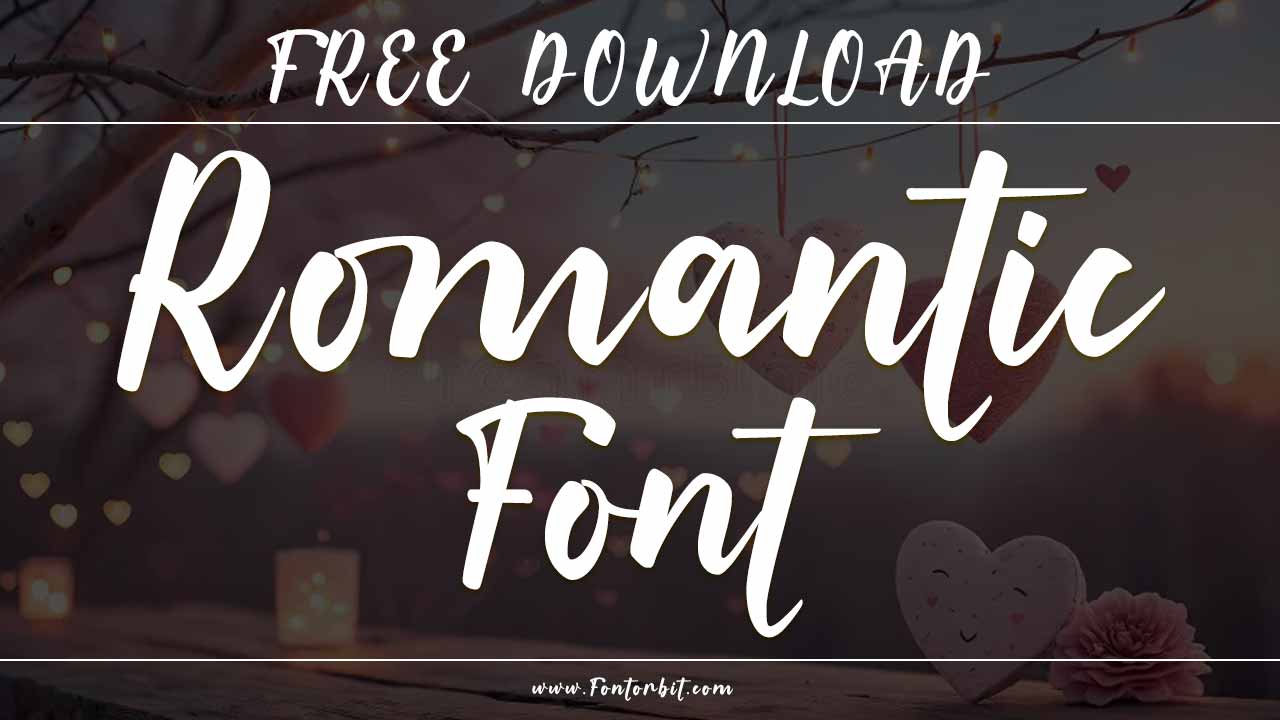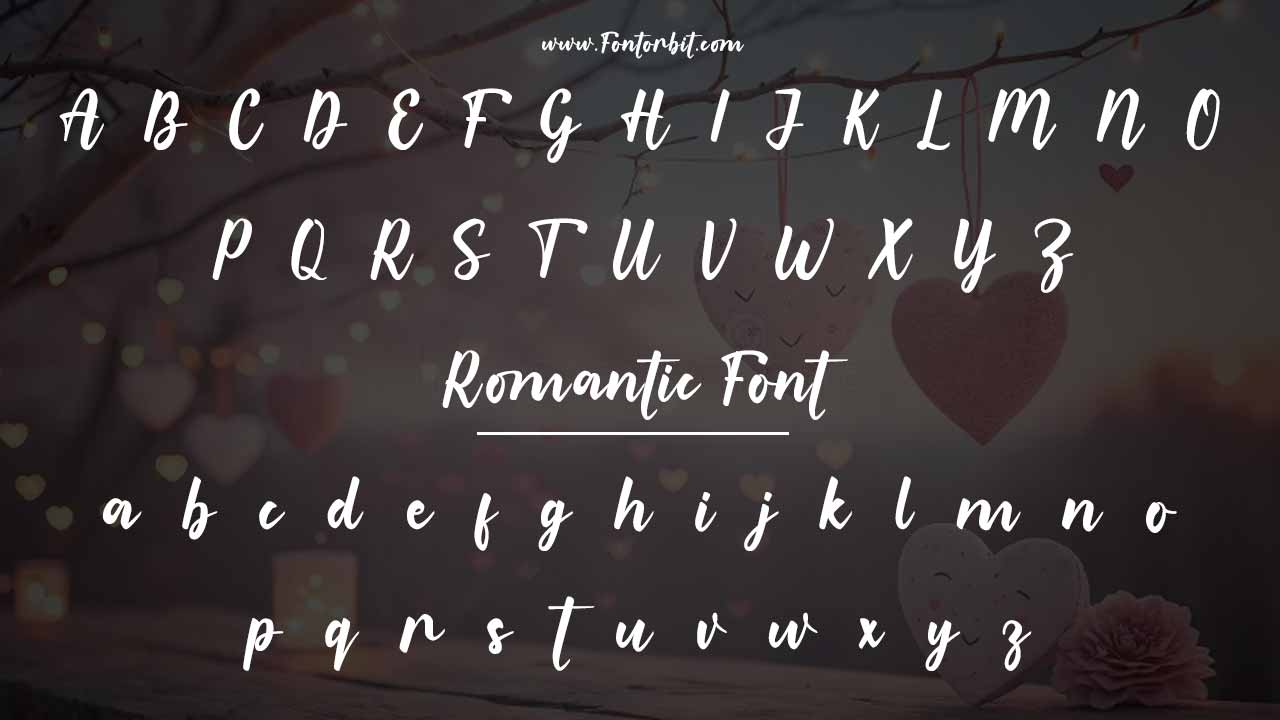
Romantic fonts add a touch of charm, elegance, and sophistication to any design. Whether you’re crafting wedding invitations, love letters, or branding elements, these typefaces convey emotion and beauty. Designed by Billy Argel, romantic fonts blend calligraphy, script, and serif styles to create stunning typography.
What Is A Romantic Font?
A romantic font is a typeface that exudes elegance, love, and sophistication. It often includes:
- Handwritten or calligraphy-style strokes
- Decorative flourishes and ligatures
- A soft, flowing structure
- Serif or sans-serif variations for different design needs
Popular Romantic Font Family
Here are some well-known romantic font families that enhance elegance in designs:
- Billy Argel Fonts
- Live Mint
- Valentines Day Script
- Modern Calligraphy Collection
- Serif Elegance
- Condensed Love
- Playful Romance
Why Use Romantic Fonts In Design?
Romantic fonts work well for:
- Wedding Invitations – Adds elegance to event details
- Greeting Cards – Creates a heartfelt, personalized touch
- Logo Fonts – Perfect for luxury brands
- Typography Projects – Enhances creative works
- Valentine’s Day Designs – Captures the spirit of love
- Cursive & Calligraphy Fonts – Gives a handwritten feel
Choosing The Perfect Romantic Font
Consider these factors when selecting the right romantic font for your project:
| Feature | Best Font Style To Use |
| Serif Fonts | Formal branding, invitations |
| Sans Serif Fonts | Modern designs, digital graphics |
| Cursive Fonts | Elegant scripts, personal notes |
| Blackletter Fonts | Vintage-inspired designs |
| Playful Fonts | Fun, decorative greeting cards |
Similar Fonts For Romantic Designs
If you want alternatives, here are some similar romantic fonts:
- Elegant Serif – A timeless serif font
- Love Letter Script – A delicate cursive option
- Futuristic Font – A modern twist on romance
Romantic fonts are essential for designers looking to create love-inspired, elegant, and sophisticated typography. Whether used for branding, invitations, or social media, these fonts bring charm and beauty to any project. Explore different styles to find the perfect romantic typeface for your needs!
1.What Makes A Font Romantic?
A romantic font features smooth curves, elegant swashes, and a sophisticated aesthetic perfect for love-themed designs.
3.Can I Use Romantic Fonts For Logos?
Yes, romantic fonts add a classy, elegant touch to branding and logo design.
4.What Is The Best Romantic Font For Invitations?
Cursive and calligraphy fonts are ideal for invitations, as they create a personal and elegant feel.
5.What Is An Example Of A Modern Romantic Font?
“Love Mint” and “Modern Calligraphy” are popular choices for contemporary designs.
6.Do Romantic Fonts Work For Digital Designs?
Yes, they enhance website typography, social media graphics, and digital invitations.
7.How Do I Pair Romantic Fonts With Other Styles?
Pair a romantic script with a simple serif or sans serif font to balance elegance and readability.